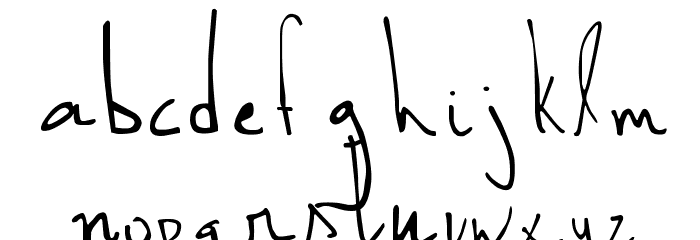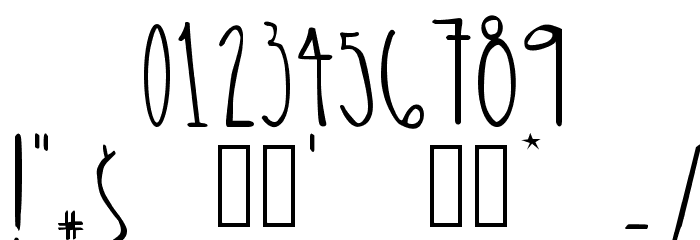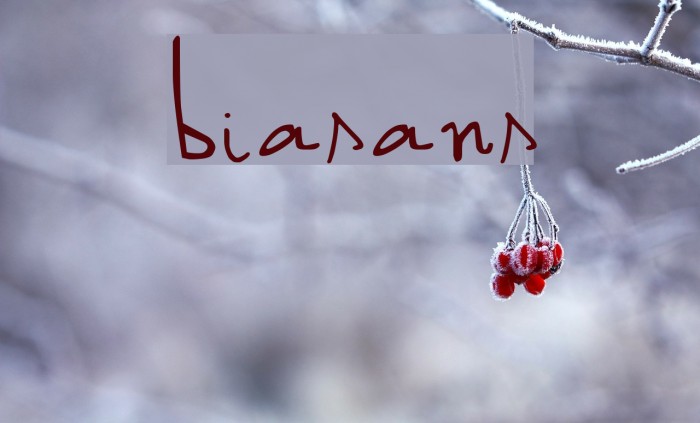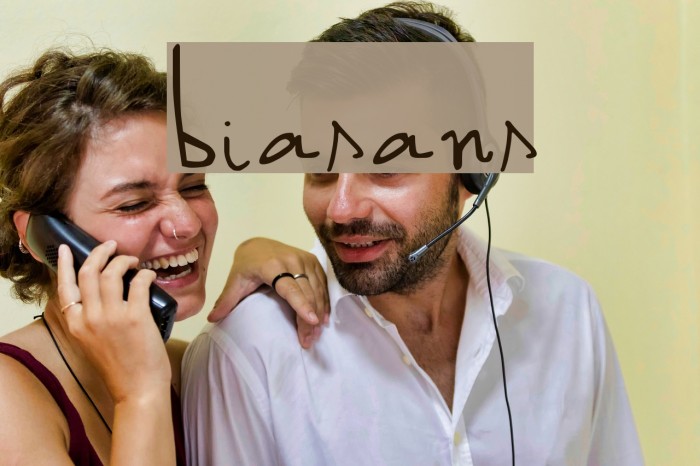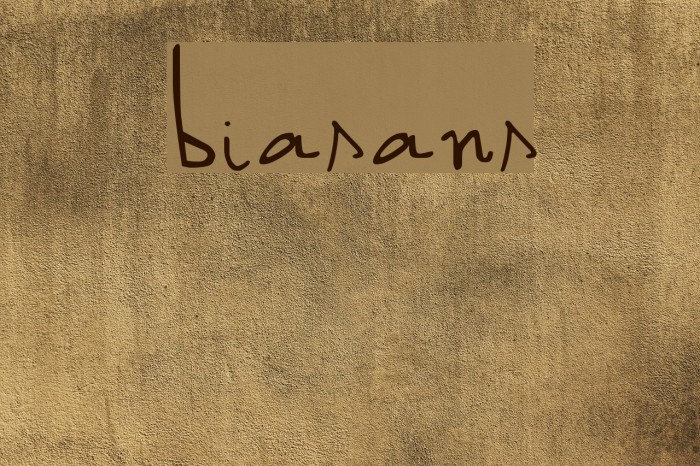
biasans Font
This font exhibits a playful and whimsical style with its tall, narrow letterforms and uneven stroke widths. The uppercase letters are elongated and slightly irregular, giving them a hand-drawn appearance. The lowercase letters maintain a similar quirky aesthetic, with some characters featuring unique loops and curves. The numbers are consistent with the overall style, maintaining the same tall and slender form. Special characters are creatively designed, adding to the font's distinctive personality. The overall impression is informal and artistic, making it suitable for creative projects.
A playful, hand-drawn font with tall, narrow characters and a whimsical style.
- Proposed Projects: Ideal for children's book covers, playful branding, artistic posters, and creative invitations.